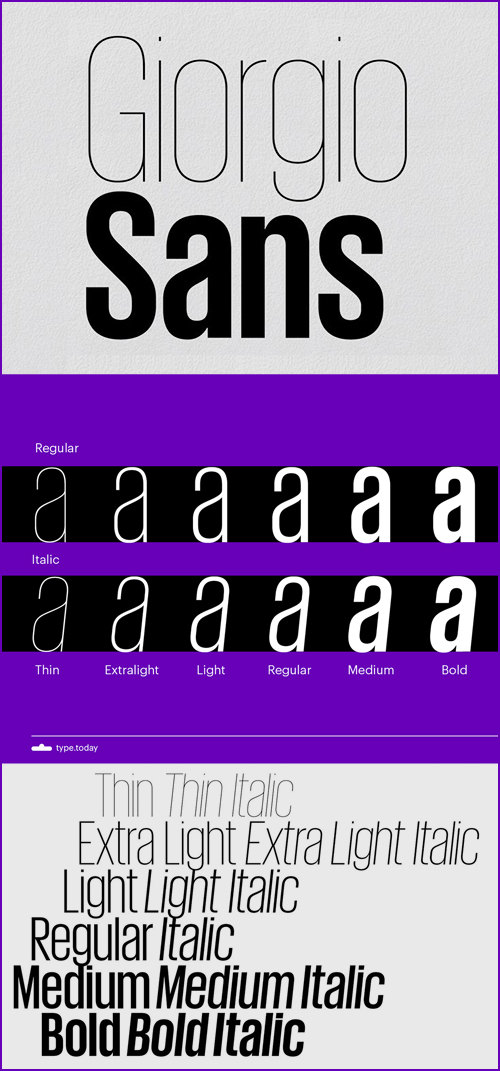
THIN | EXTRA LIGHT | REGULAR | MEDIUM | BOLD TYPES with ITALICS
- Giorgio Sans takes Giorgio’s elegance in new and unexpected directions, again being designed for Chris Martinez at T, the New York Times Style Magazine. With more style than the typical condensed sans, it features an alternate set of round titling capitals for a truly unique look. The Heavy and Black weights were added by Vincent Chan in 2012.